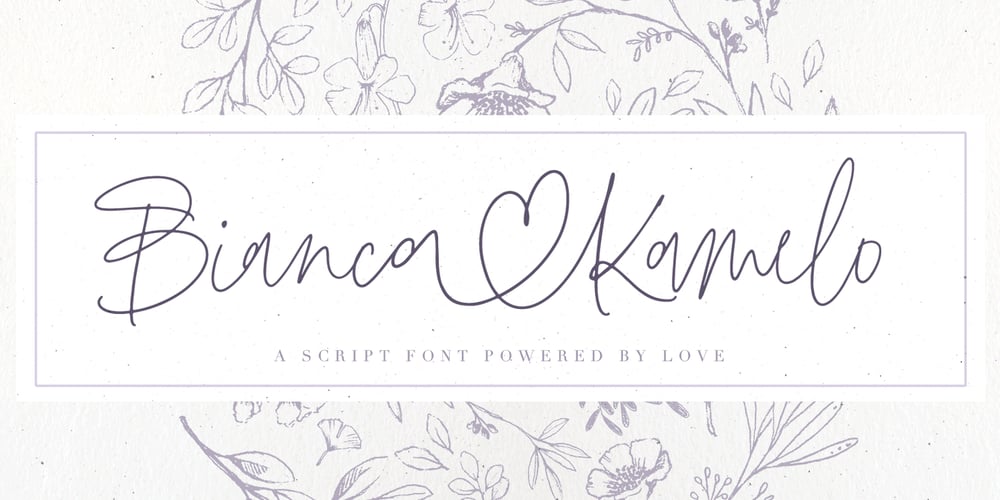
Bianca Kamelo Font Family was designed by Ivan Rosenberg and published by Ivan Rosenberg. Bianca Kamelo contains 1 styles and family package options. Bianca Kamelo is a modern hand-lettered font with 67 standard ligatures and unique 676 “love ligatures” which connect names with style. Font includes multilingual support for Western and Central Europe. It is ideal for weddings invitations, baby showers, blogs and websites, instagram, branding, invitations, business cards, and many more. This font also include complete set of alternates for uppercase and lowercase characters and stylistic ends for lowercase characters. To activate the “love ligatures” you just need to enable “standard ligatures” and type name without separator (space). For example BiancaKamelo. If the name ending with standard ligature, you need to disable that ligature, enable ligature for last name character and first surname character. For example: ChristianKate – disable ligature for ChristianKate and enable for ChristianKate. For access to Stylistic Alternates is required software with glyphs panel like Photoshop, Illustrator etc. Ligatures shows up automatically.